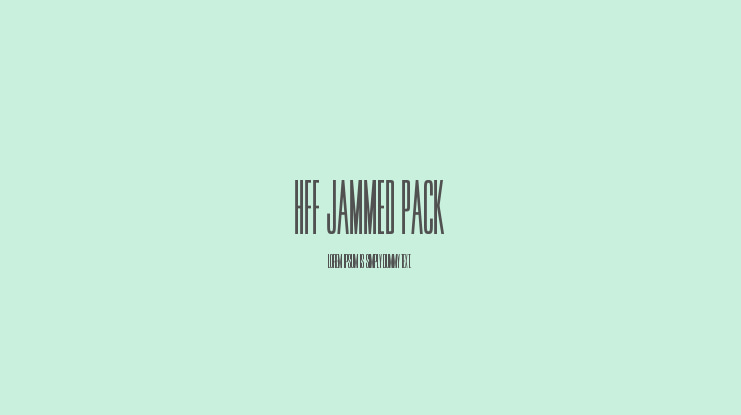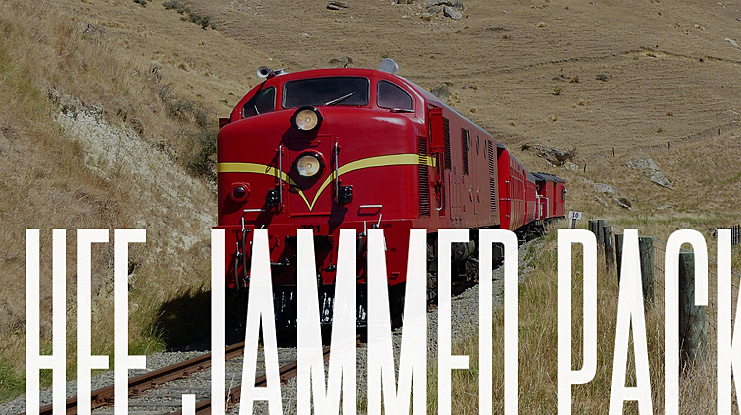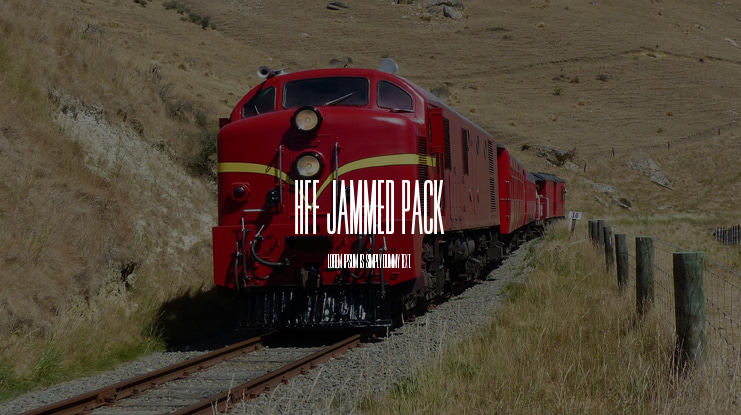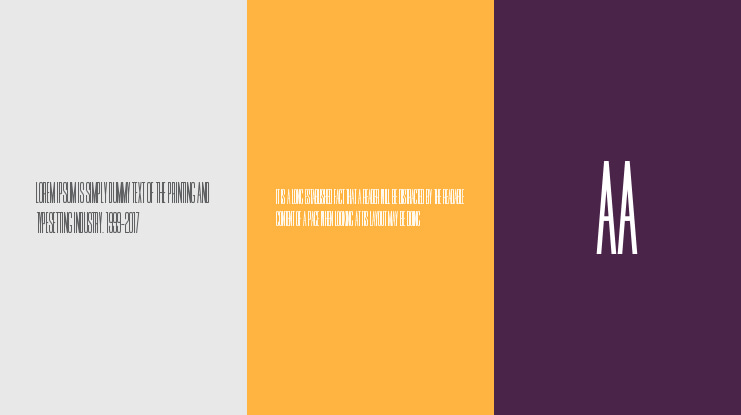
HFF Jammed Pack Font
HFF Jammed Pack is based on Triple Condensed from page 91 of "Condensed Alphabets: 100 Complete Fonts" by Dan X. Solo. Triple Condensed Gothic is also featured on page 166 of "The Solotype Catalog of 4,147 Display Typefaces".